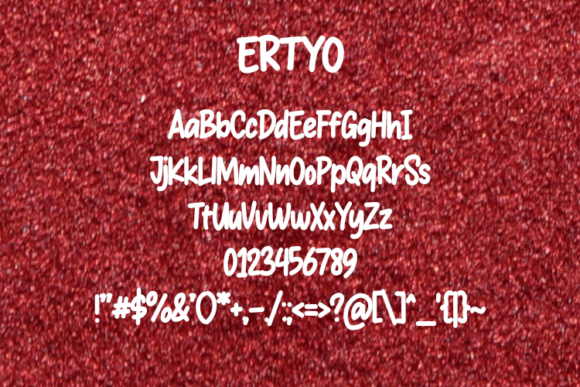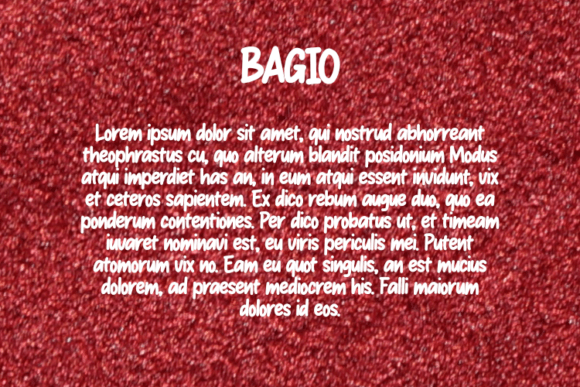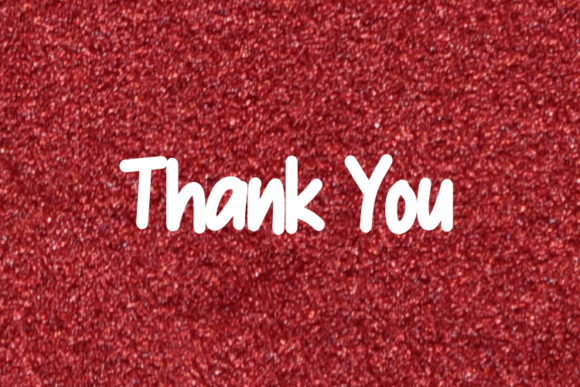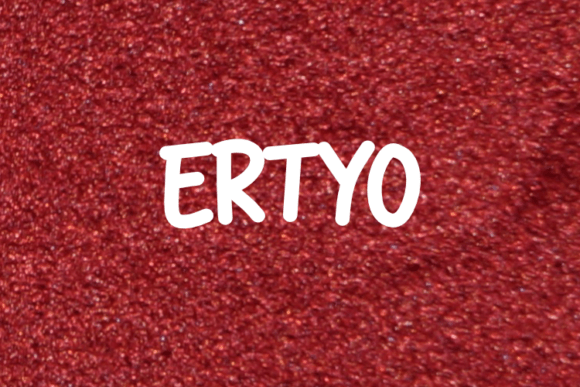
Introducing Ertyo Font: Elevate Your Fashion Designs with Style
In the world of design, typography plays a crucial role in conveying the essence of a brand or product. For fashion designers, crafters, and artists, finding the perfect font that embodies style, versatility, and creativity can be a daunting task. This is where Ertyo Font comes into play – a game-changing typeface designed specifically for fashion-inspired creations. From clothing designs to trendy t-shirts, and beyond, Ertyo Font is the ultimate tool to take your designs to the next level.
The Birth of Ertyo: A Font for Fashion
What Makes Ertyo Font So Special?
So, what sets Ertyo Font apart from other typefaces? Here are a few key features that make it a must-have for designers and crafters:
- Versatility: Ertyo Font is designed to be universally adaptable, making it perfect for a wide range of design utilities. Whether you’re working on clothing designs, t-shirts, posters, or social media graphics, Ertyo Font is the perfect choice.
- Artistic Statement: Ertyo Font is more than just a typeface – it’s an artistic statement. With its sleek and stylish design, Ertyo Font adds a touch of sophistication and elegance to any design.
Benefits of Using Ertyo Font
By incorporating Ertyo Font into your design workflow, you can enjoy a range of benefits, including:
- Enhanced Creativity: With Ertyo Font, you can unleash your creativity and bring your fashion designs to life in a whole new way.
- Consistency: Ertyo Font ensures consistency across all your designs, helping to establish a strong brand identity.
- Time-Saving: With Ertyo Font, you can save time and effort by using a single, versatile typeface for all your design needs.
How to Use Ertyo Font in Your Designs
- Experiment with different styles, sizes, and colors to find the perfect look for your design.
- Use Ertyo Font to create stunning fashion designs, from clothing and accessories to posters and social media graphics.
Tips and Tricks for Working with Ertyo Font
To get the most out of Ertyo Font, here are a few tips and tricks to keep in mind:
- Experiment with different font sizes: Ertyo Font looks great in a variety of font sizes, from large headings to small body text.
- Play with font colors: Ertyo Font comes in a range of colors, so don’t be afraid to experiment and find the perfect hue for your design.
- Combine with other fonts: Ertyo Font pairs well with other fonts, so feel free to get creative and combine it with other typefaces to create a unique look.